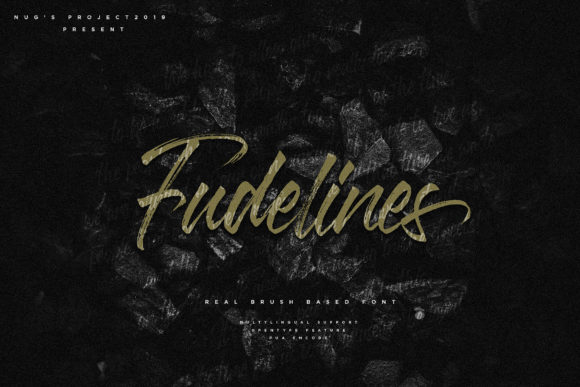
Immerse yourself in the captivating artistry of Fudeline Font, a beautifully handcrafted script font family born from the creative genius of Andrie Nugrie. Discover a world of beauty and charm, where every letter dances across the page with an elegant and graceful finesse. With its enchanting brush strokes and flowing lines, Fudeline Font adds a touch of sophistication and personality to any design project.
Unleash your imagination and bring your creative visions to life with Fudeline Font. Its versatility knows no bounds, making it the perfect choice for an array of projects, from wedding invitations and branding to social media graphics and website designs. Watch as your words transform into stunning works of art, capturing the attention of your audience and leaving an unforgettable impression.
Indulge in the exquisite details of Fudeline Font, where each character is meticulously crafted to perfection. Its sweeping curves and delicate flourishes evoke a sense of timeless elegance, while its modern and contemporary style ensures it remains relevant and captivating. Whether you're designing a logo, creating social media content, or crafting personalized invitations, Fudeline Font adds a touch of artistry that elevates your work to new heights.
Experience the joy of using Fudeline Font and let your creativity flourish. Its user-friendly nature makes it accessible to designers of all levels, allowing you to easily incorporate its beauty into your projects. Transform your designs into captivating masterpieces, evoke emotions, and create a lasting impact with every stroke of your pen.
Elevate your designs with the allure of Fudeline Font and unlock a world of endless possibilities. Let your imagination run wild and allow Fudeline Font to be your faithful companion in your creative journey. Embrace the artistry, embrace the beauty, and embrace the power of Fudeline Font.